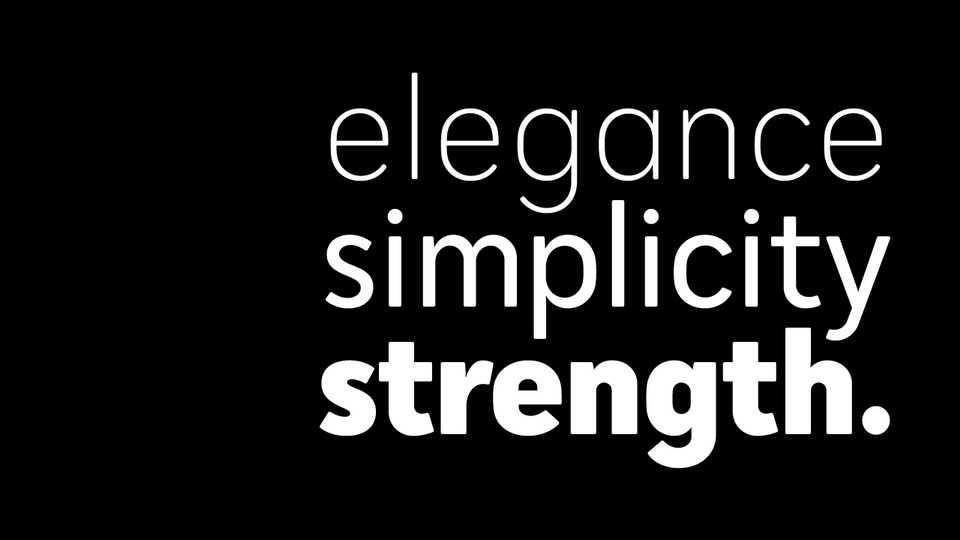
Cadmium is a contemporary sans serif typeface.
Free version of Cadmium includes Regular weight, the complete family presented by four width-based sub-families: Expanded, Normal, Condensed and Compressed. Each width has a matching range of six weights and italics (obliques). Each width differs in its basic construction but all fonts share the same vertical metrics and may be used in combination with each other.
Cadmium is good for signage, publicity and packaging, screen credits and titling, general print and publication, as well as web and screen applications.